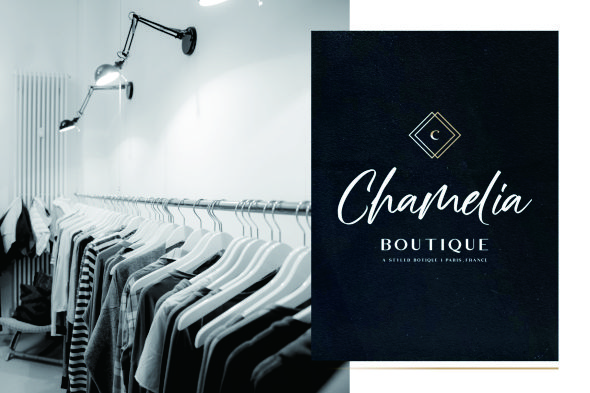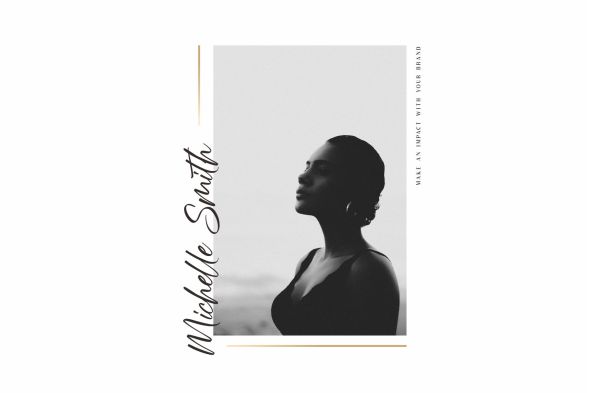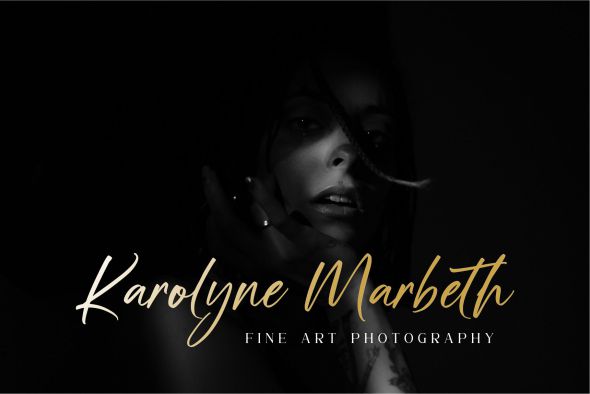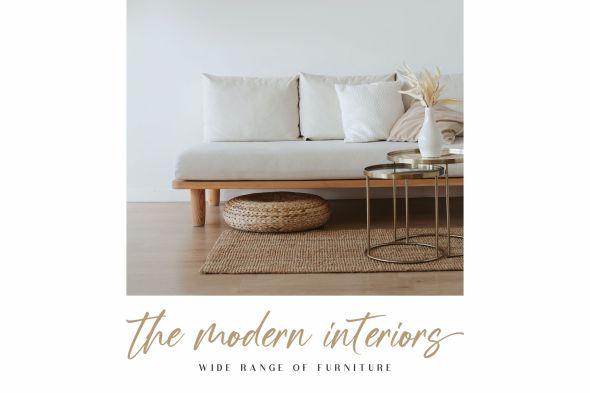
Sienthas Handwritten Font
This is a handwritten font with contemporary, sophisticated accents. It is perfect for branding, wedding invites, tagline, cards, maybe for label and logo.
Sienthas includes full set of gorgeous uppercase and lowercase letters, numerals, a large range of punctuation and ligatures. It expresses beauty of handwriting.
Introducing Sienthas Script Handwritten Font
Sienthas Script Handwritten Font with contemporary, sophisticated accents. It is perfect for branding, wedding invites, tagline, cards, maybe for label and logo.
Sienthas includes full set of gorgeous uppercase and lowercase letters, numerals, a large range of punctuation and ligatures.
• Uppercase & lowercase letters, numbers, punctuation
• Multilingual support
• Numerals and Punctuation